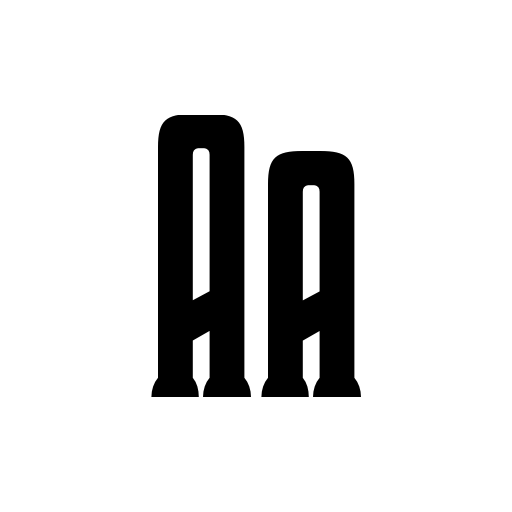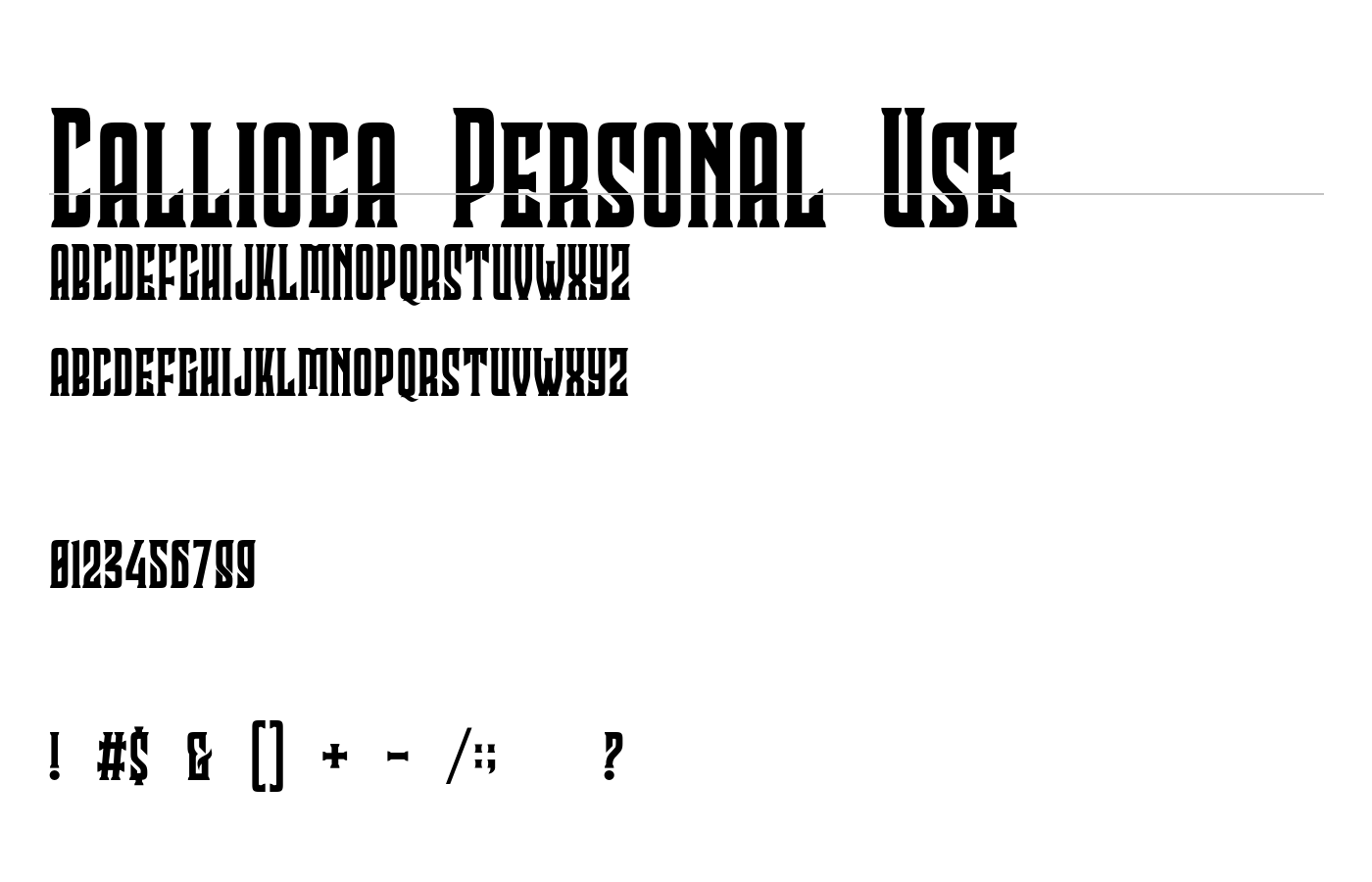
Callioca Personal Use is a bold, condensed sans-serif font with a vintage, Western-inspired feel. Its tall, narrow letterforms and sharp edges create a striking, dramatic impact, making it ideal for eye-catching headlines, posters, and branding that seeks a strong, rugged character. This font works well for designs needing a distinctive, retro look with a modern twist.
Callioca Personal Use Font
About Callioca Personal Use Font